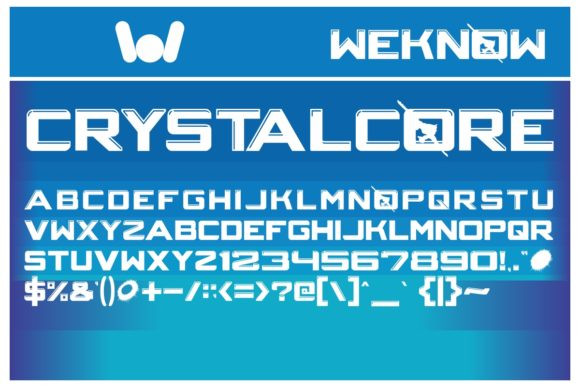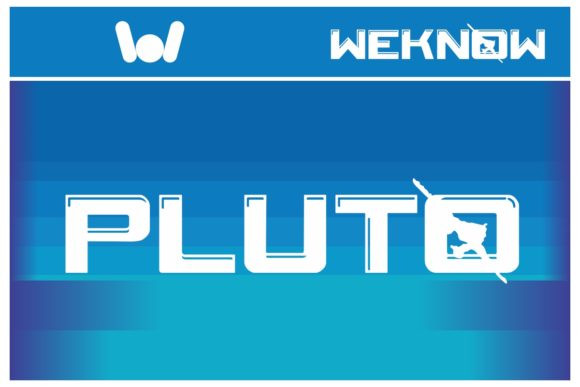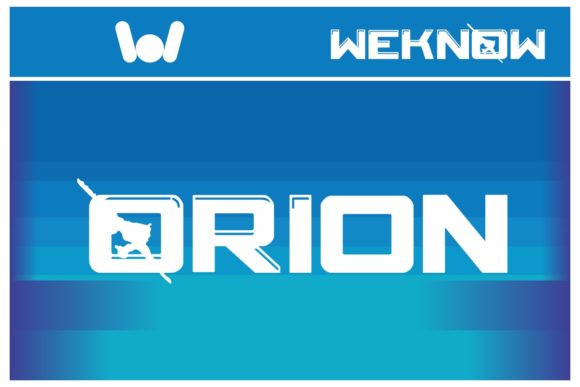
Crystalcore Font
Crystalcore embodies fun, quirkiness and authenticity. This enchanting display font will turn any creative idea into a true standout.